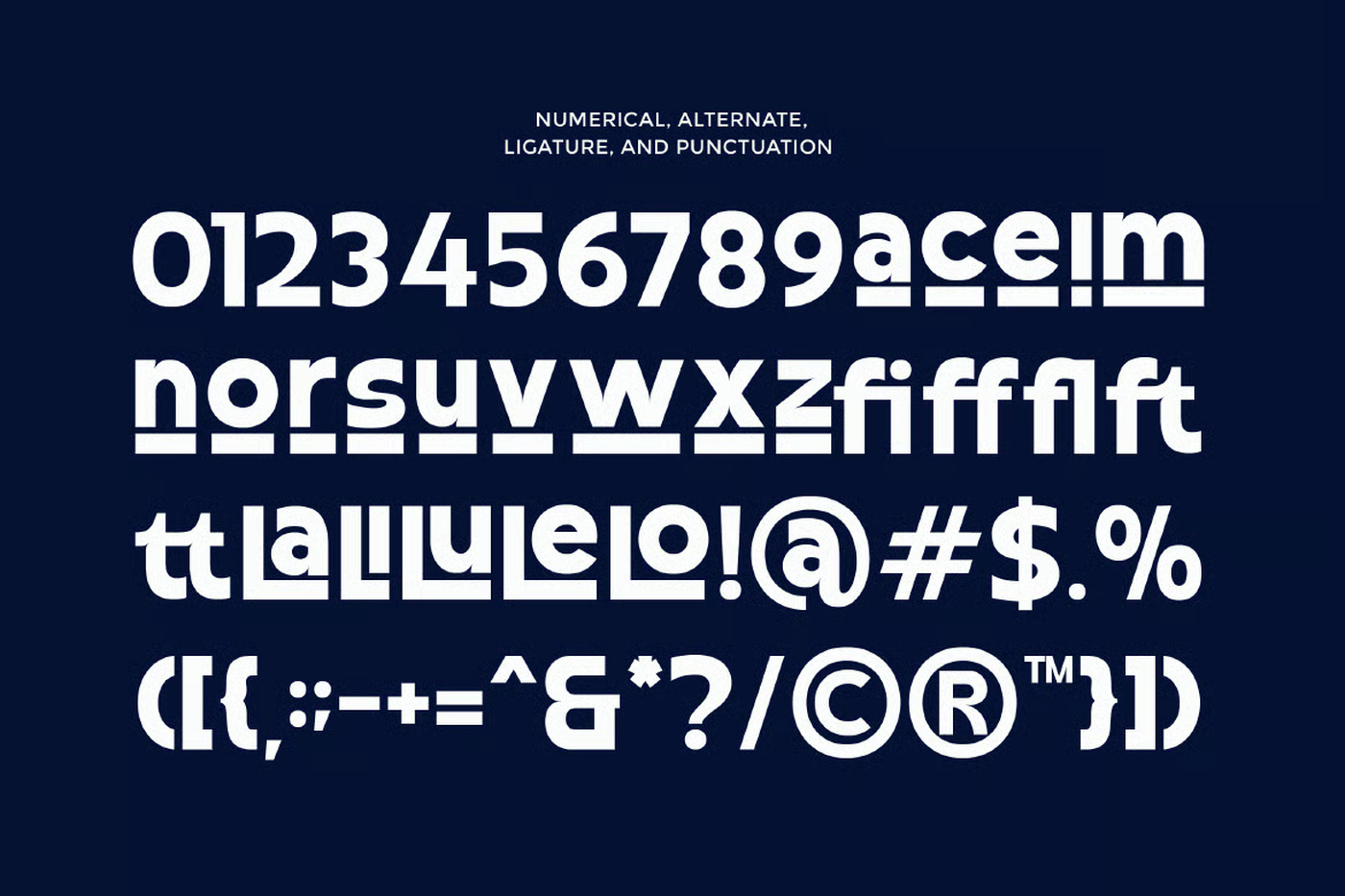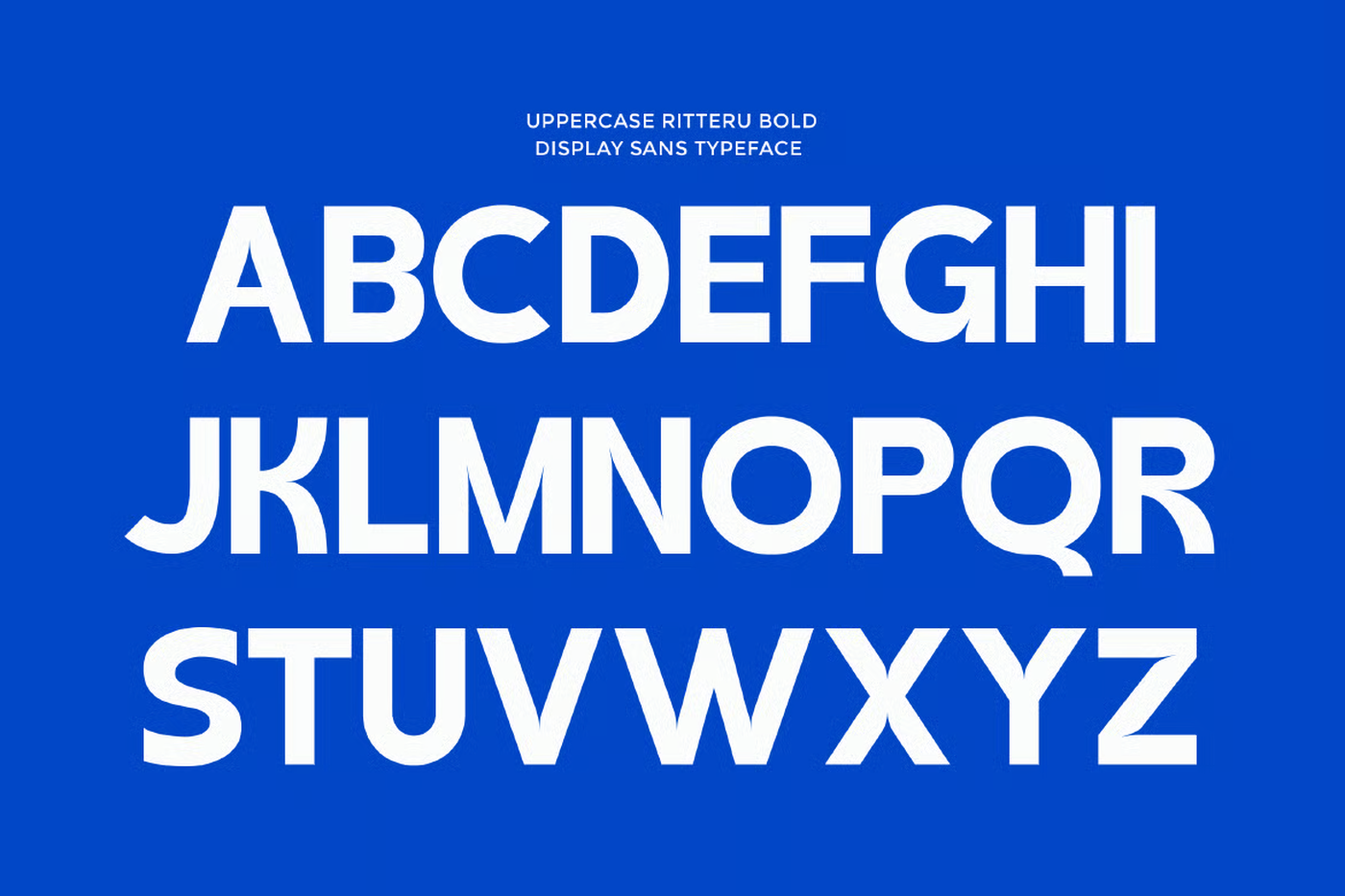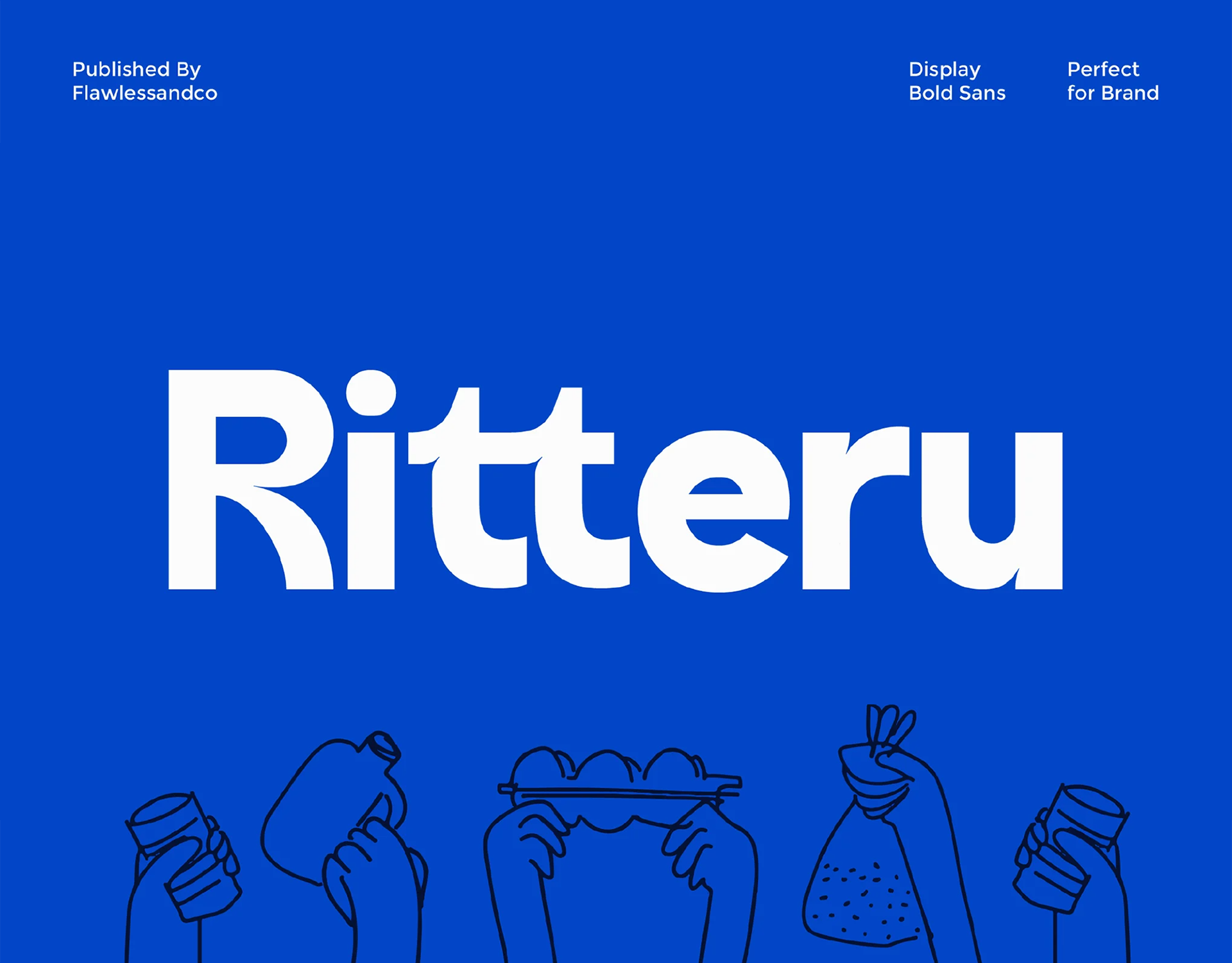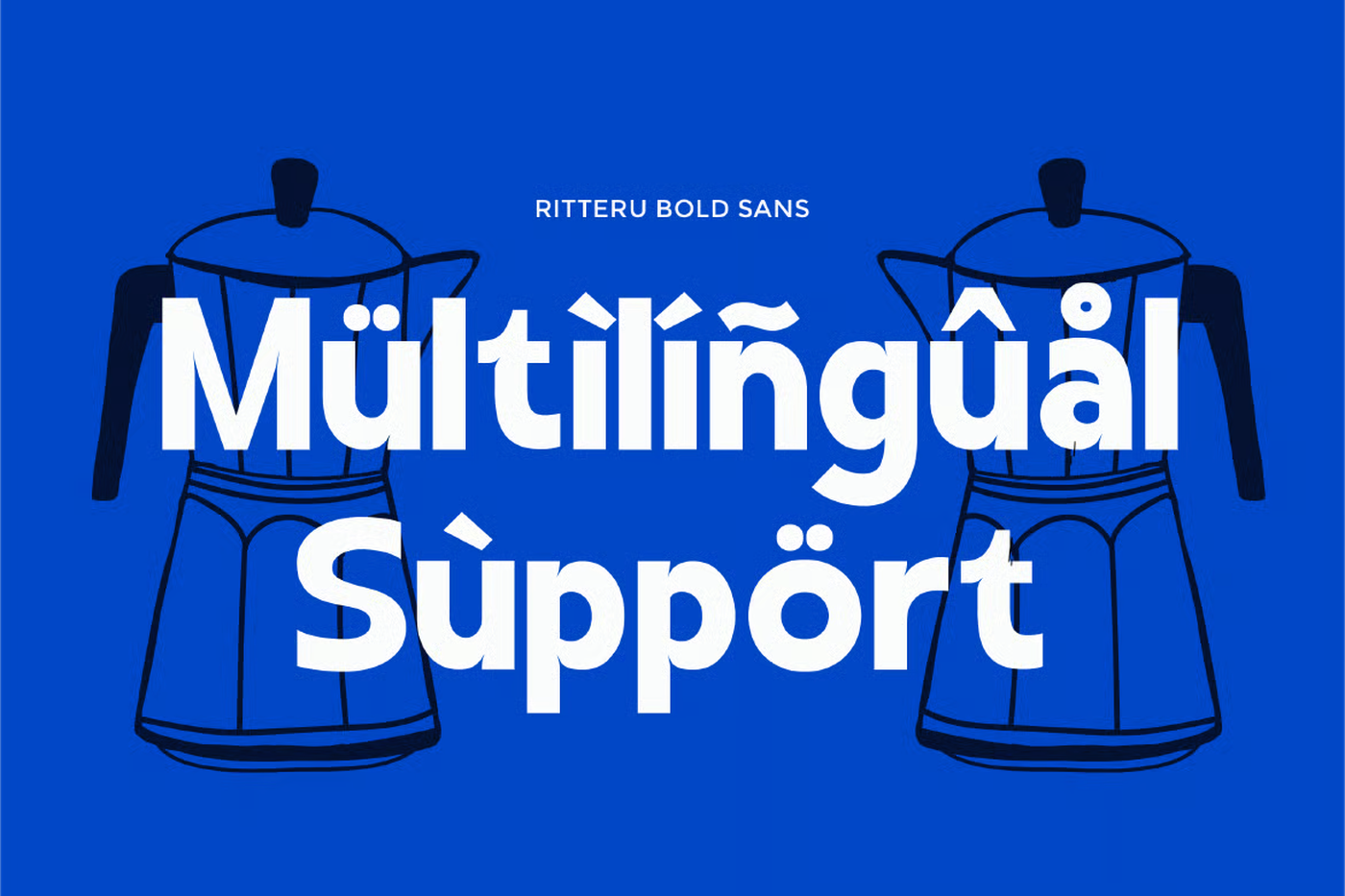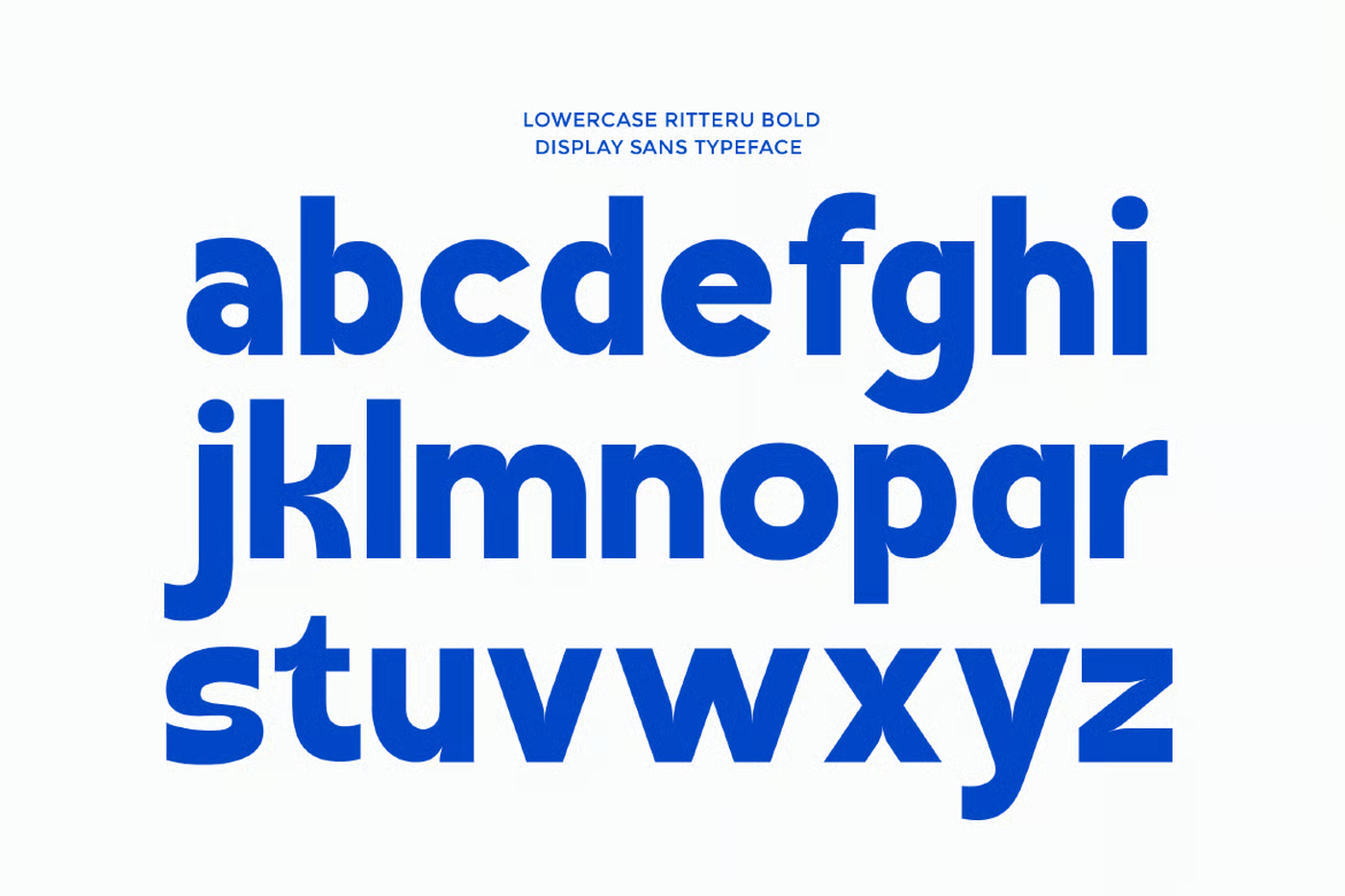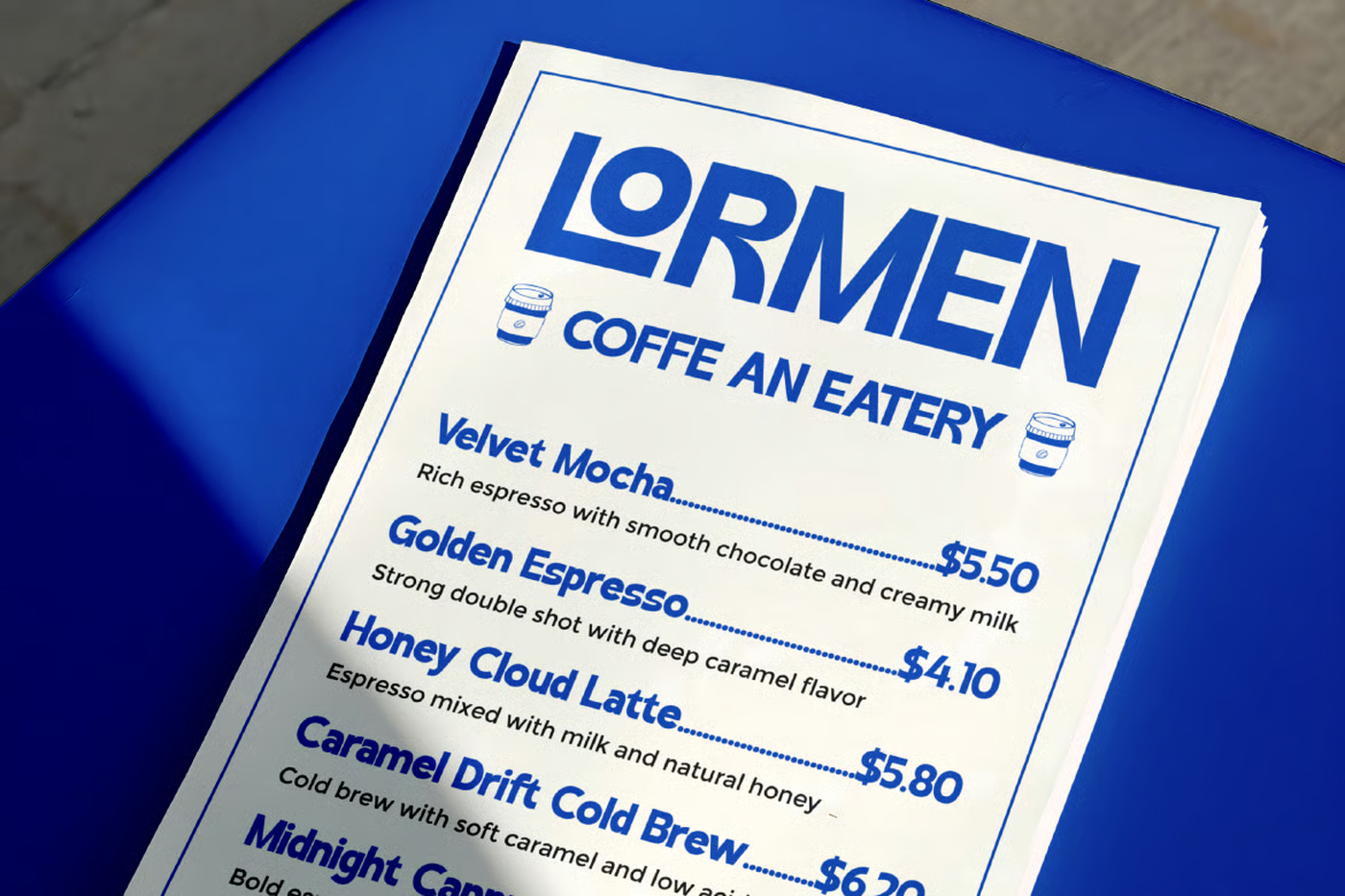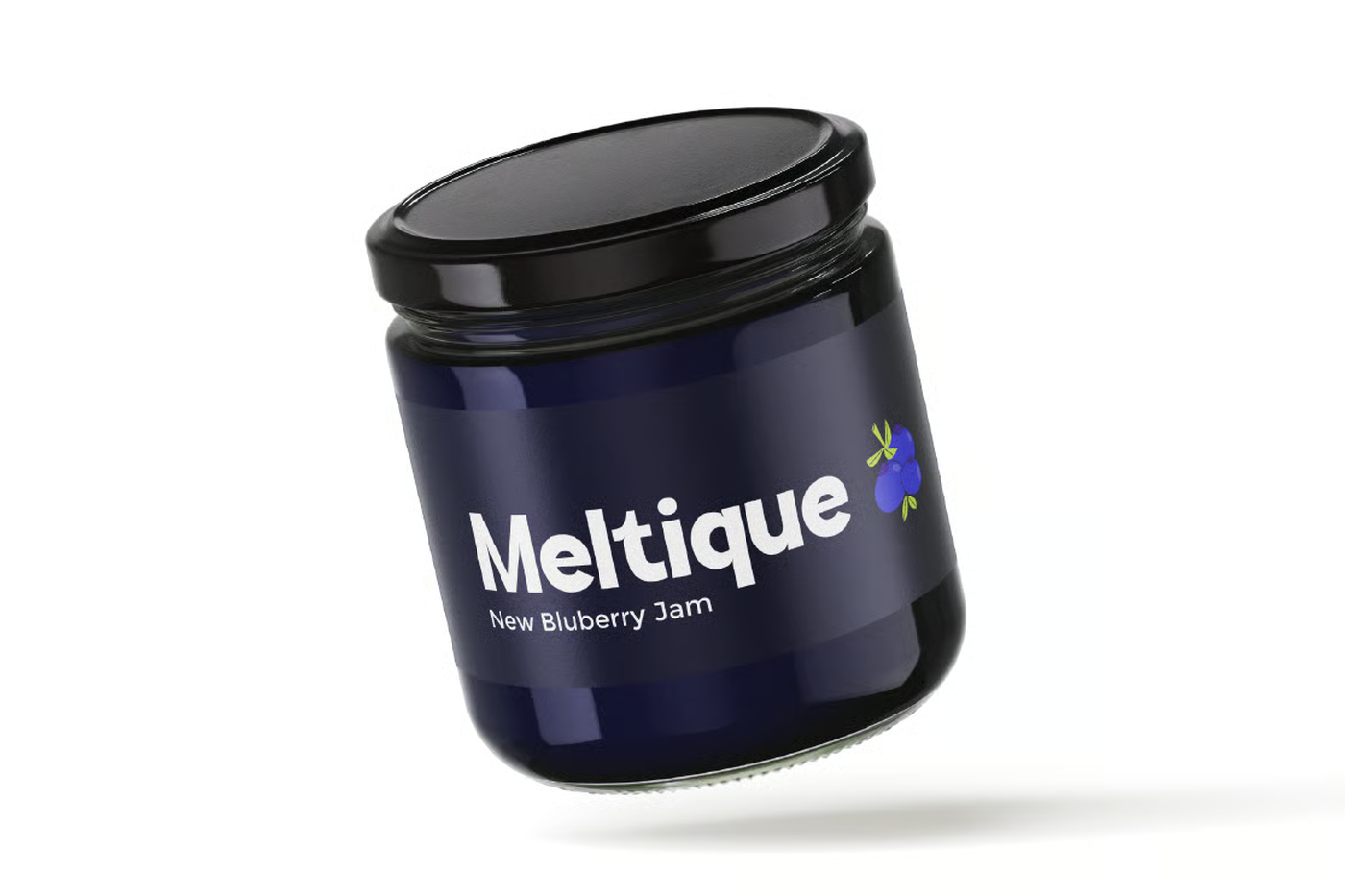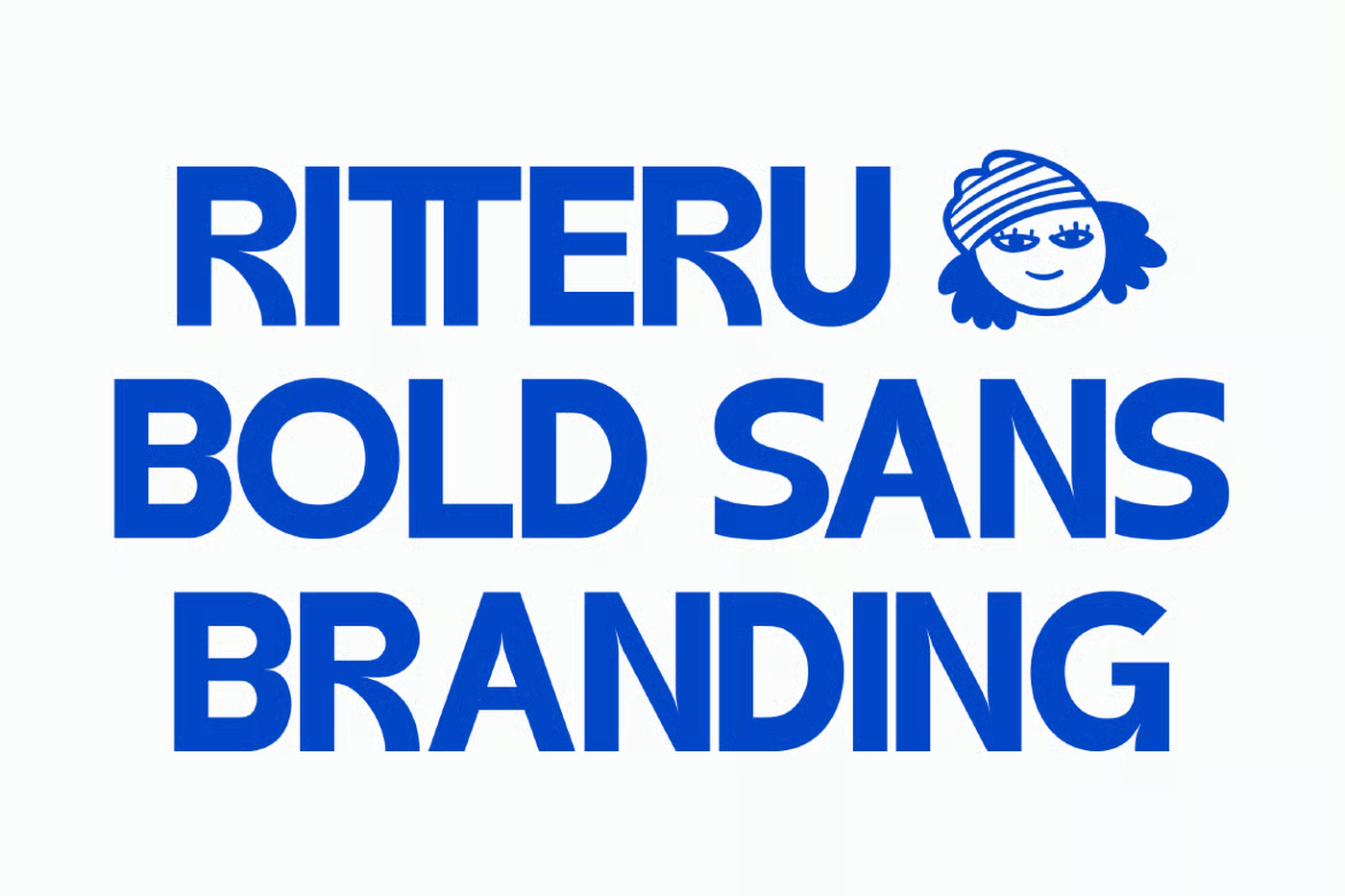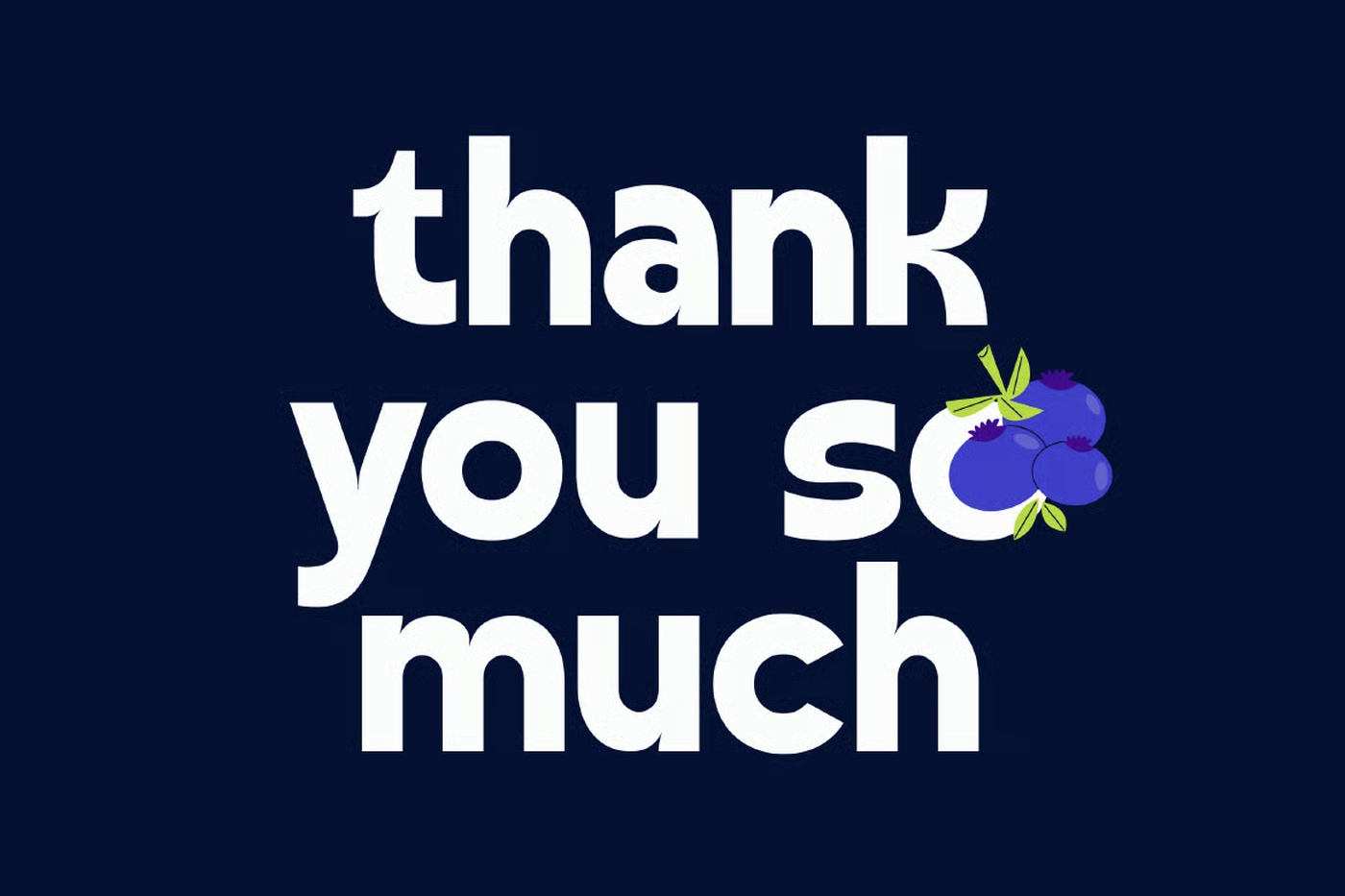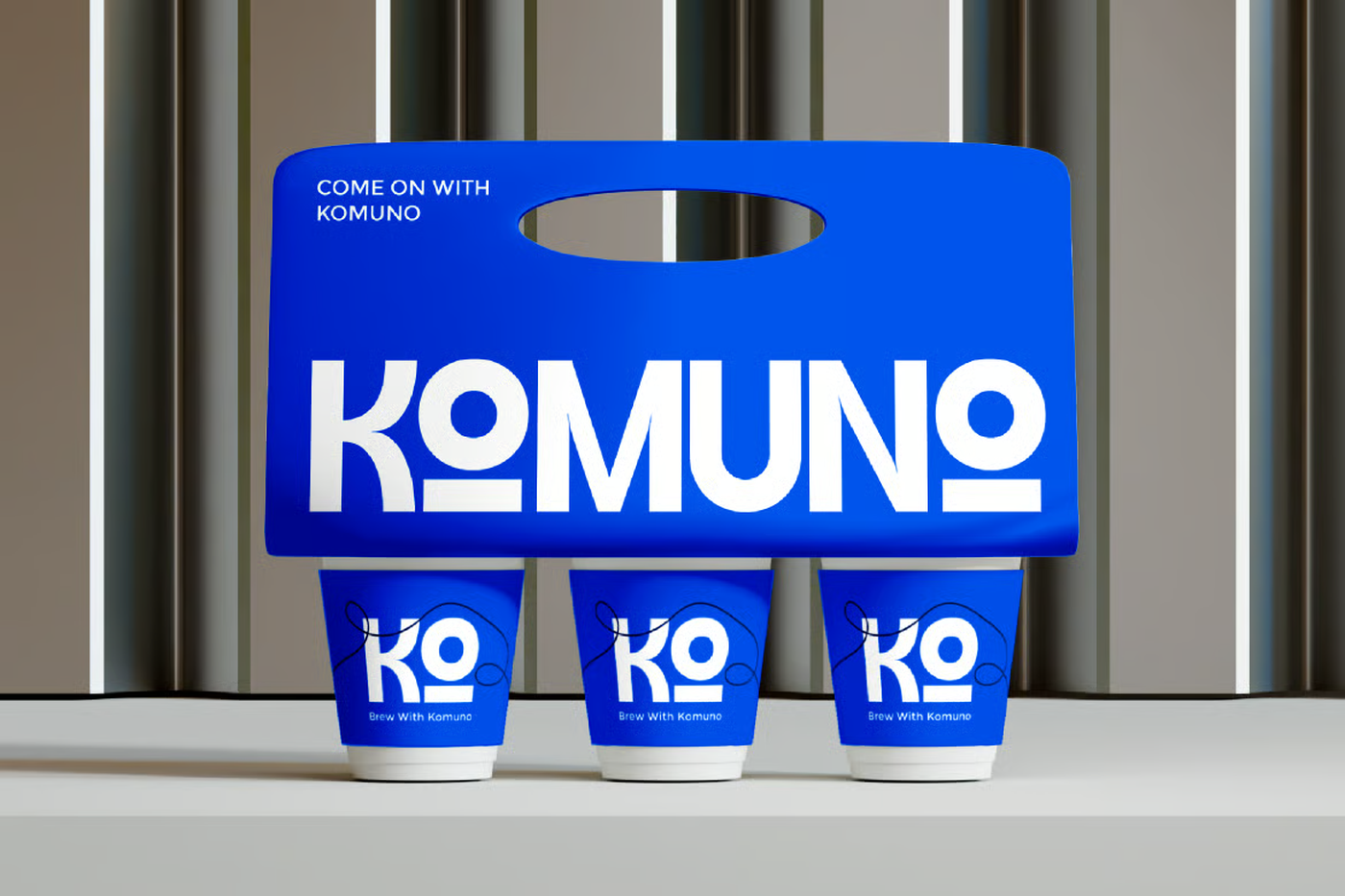
Ritteru - Bold Sans Serif Font
Ritteru is a modern bold sans serif display font designed to deliver strength, clarity, and high-impact visuals in every layout. With its clean geometry, confident curves, and strong proportions, Ritteru brings a fresh and contemporary character that stands out effortlessly in both digital and print designs. Every letter is crafted to look striking, readable, and memorable—making Ritteru the perfect choice for designers who want bold statements with a professional edge.
Font: Ritteru